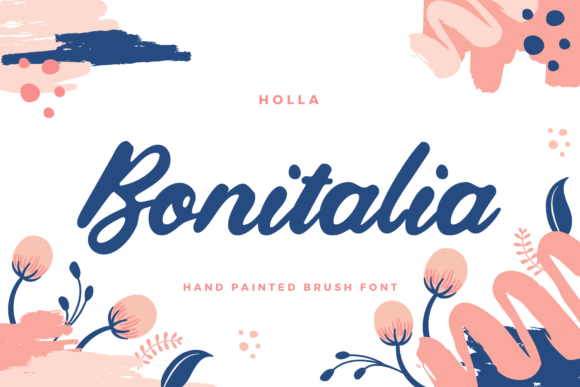
Introducing Bonitalia Font: The Ultimate Hand-Drawn Script for Stunning Designs
Are you a designer or crafter looking for a unique and eye-catching font to elevate your creative projects? Look no further than Bonitalia Font, a fun and bold hand-drawn script that’s sure to make your text stand out. In this article, we’ll dive into the world of Bonitalia Font, exploring its features, benefits, and uses, as well as provide tips and inspiration for incorporating it into your designs.
The Story Behind Bonitalia Font
Bonitalia Font is a carefully crafted hand-drawn script that’s been designed to add a touch of personality and flair to your text. Every single letter has been meticulously drawn to ensure that your text looks beautiful and unique. The font’s creator has poured their heart and soul into designing a font that’s both fun and sophisticated, making it perfect for a wide range of creative projects.
What Makes Bonitalia Font So Special?
So, what sets Bonitalia Font apart from other fonts out there? Here are just a few of its standout features:
- Hand-drawn with love: Every letter has been carefully crafted by hand, giving the font a unique and personal touch.
- Fun and bold: Bonitalia Font is the perfect choice for designers who want to add a touch of whimsy and playfulness to their text.
- Beautiful and elegant: Despite its bold and playful nature, Bonitalia Font is also surprisingly elegant and sophisticated, making it suitable for a wide range of design projects.
Bonitalia Font is the perfect choice for designers and crafters who want to create original and outstanding designs. Whether you’re working on a logo, branding project, or social media graphics, this font is sure to help you stand out from the crowd. Its versatility and unique charm make it an excellent addition to any design project, from:
- Logos and branding: Use Bonitalia Font to create a memorable and eye-catching logo that reflects your brand’s personality.
- Social media graphics: Add a touch of personality to your social media graphics, from Facebook posts to Instagram stories.
- Invitations and events: Use Bonitalia Font to create beautiful and unique invitations, flyers, and event materials.
- Packaging and product design: Add a personal touch to your product packaging and design with this charming font.
Tips for Using Bonitalia Font
To get the most out of Bonitalia Font, here are a few tips to keep in mind:
- Experiment with colors: Bonitalia Font looks great in a variety of colors, so don’t be afraid to experiment and find the perfect hue for your design.
- Play with textures: Add an extra layer of depth and interest to your design by combining Bonitalia Font with different textures and patterns.
- Mix and match: Don’t be afraid to combine Bonitalia Font with other fonts to create a unique and eye-catching design.
Bonitalia Font is a fun, bold, and beautiful hand-drawn script that’s perfect for designers and crafters who want to add a touch of personality to their creative projects. With its unique charm and versatility, this font is sure to become a staple in your design toolkit. So why wait? Download Bonitalia Font today and start creating original and outstanding designs that will leave a lasting impression!
In conclusion, Bonitalia Font is an exceptional hand-drawn script that’s sure to elevate your designs and make your text stand out. Its unique blend of fun, boldness, and elegance makes it the perfect choice for a wide range of creative projects. Whether you’re a seasoned designer or a crafter looking for a new font to add to your arsenal, Bonitalia Font is definitely worth checking out.